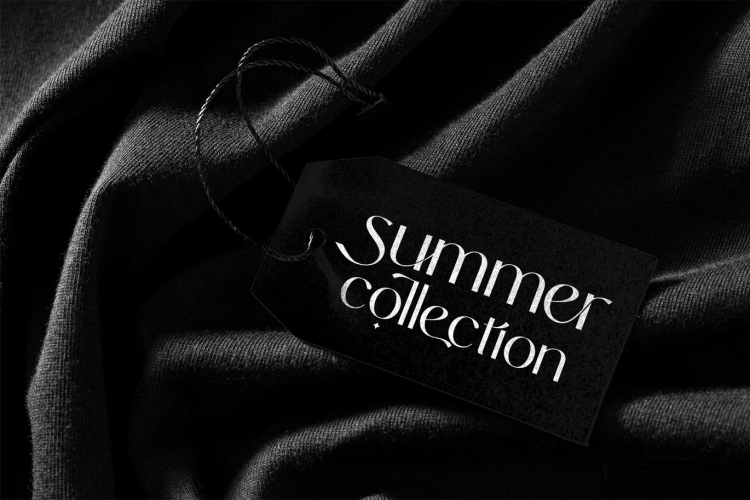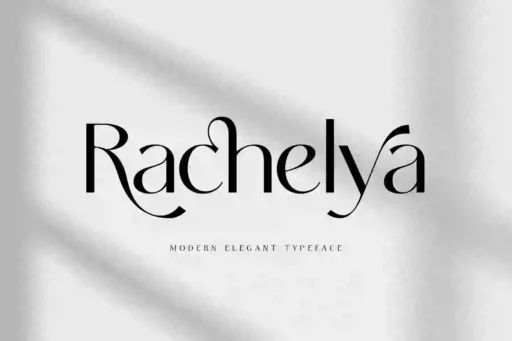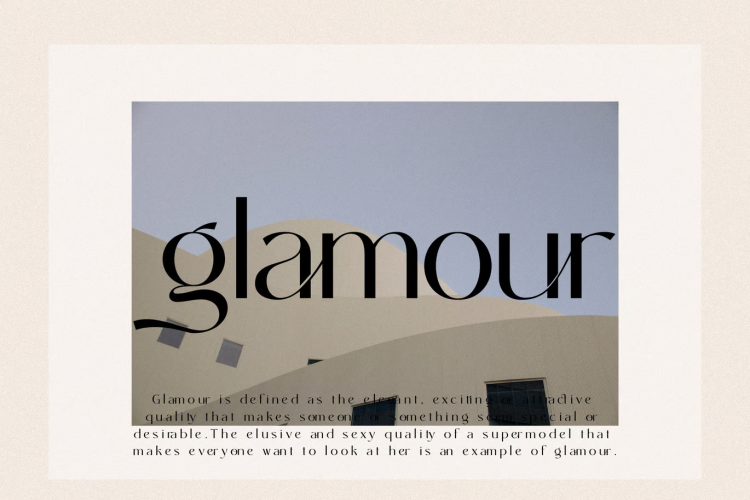
Rachelya Font
Rebeccaya is a modern and beautiful style-alternative font with lots of ligatures. It will look great with fashion or beauty themes because Rachelya has both smooth rounds and clean, medium-sized lines.
Stylistic Alternates Set
Ligatures